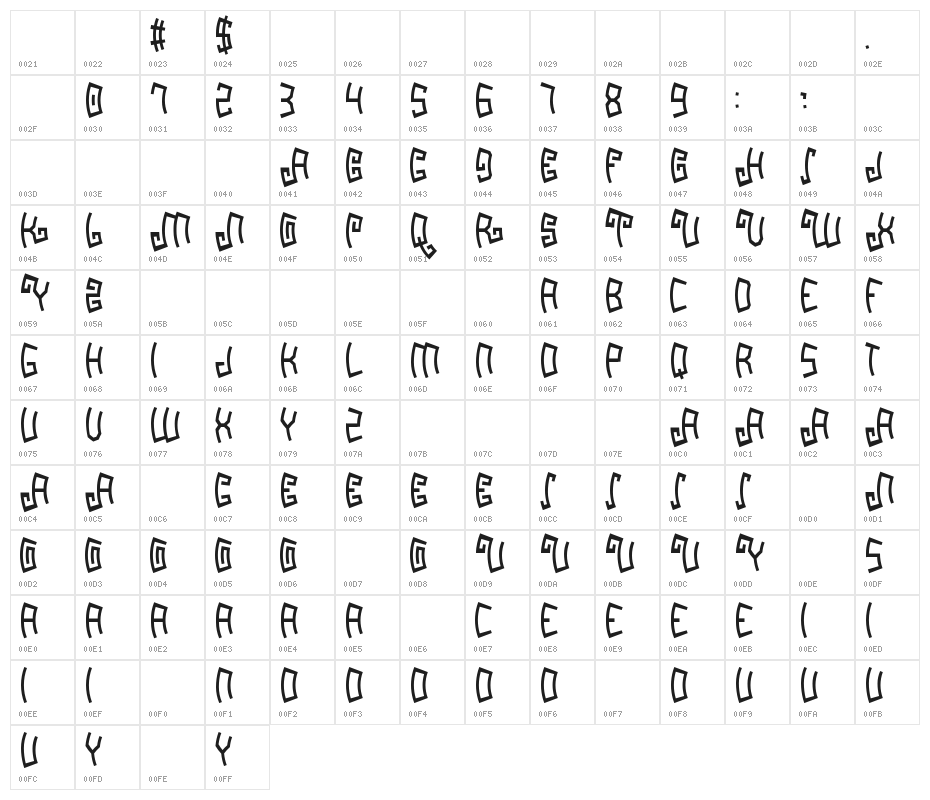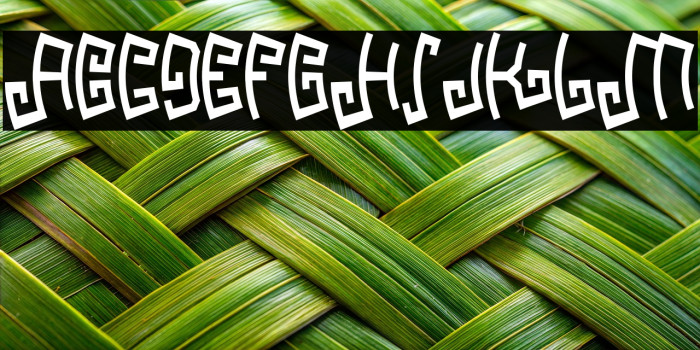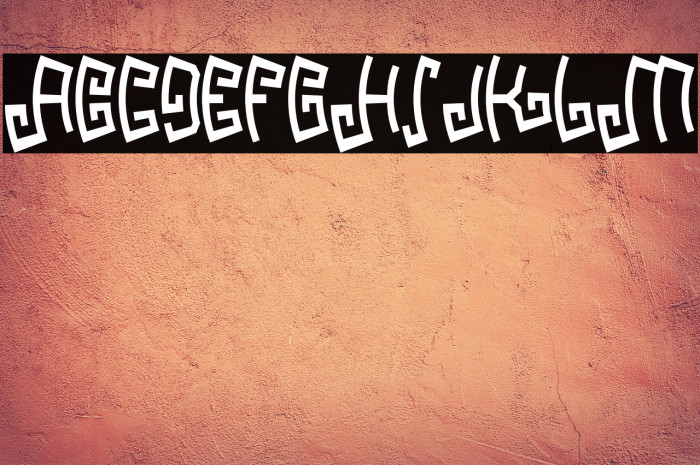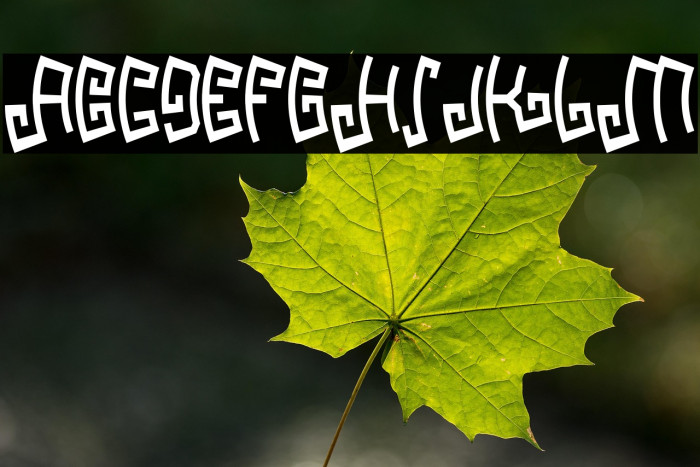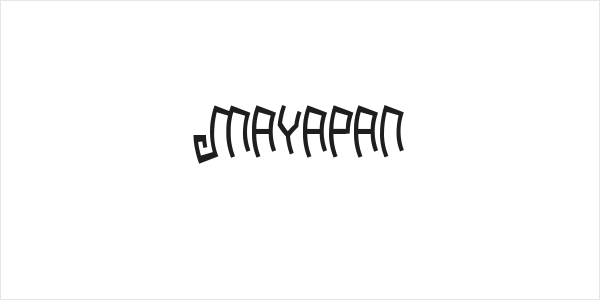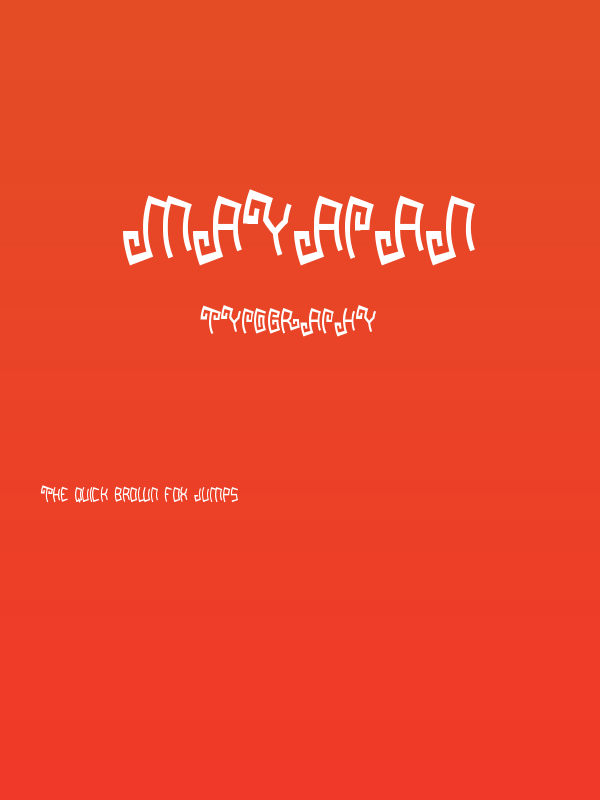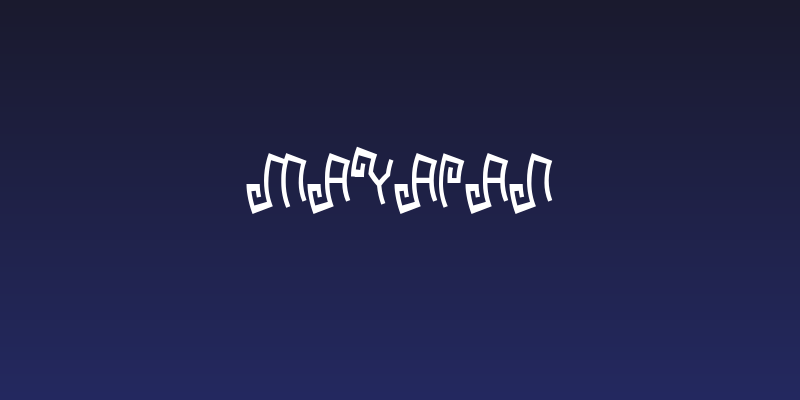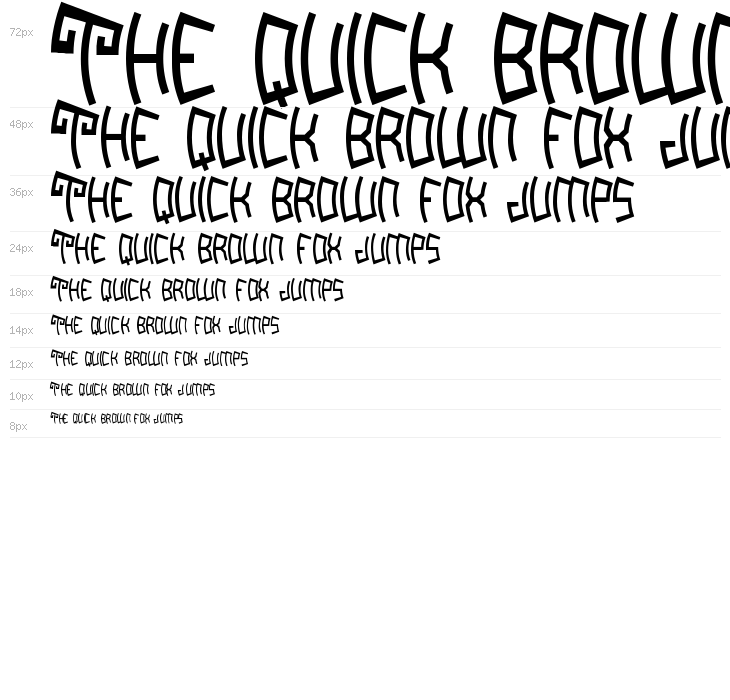
Mayapan Font
Mayapan Description
This font features a unique, angular design with a bold and geometric appearance. The characters are constructed with sharp edges and a consistent thickness throughout, giving it a modern and edgy look. The uppercase and lowercase letters maintain a cohesive style, with the uppercase being slightly more pronounced. Numbers and special characters follow the same design principles, ensuring uniformity across all elements. This font's distinctive style makes it stand out, ideal for projects that require a strong visual impact.
Proposed ProjectsIdeal for branding, posters, album covers, and any design needing a bold statement.